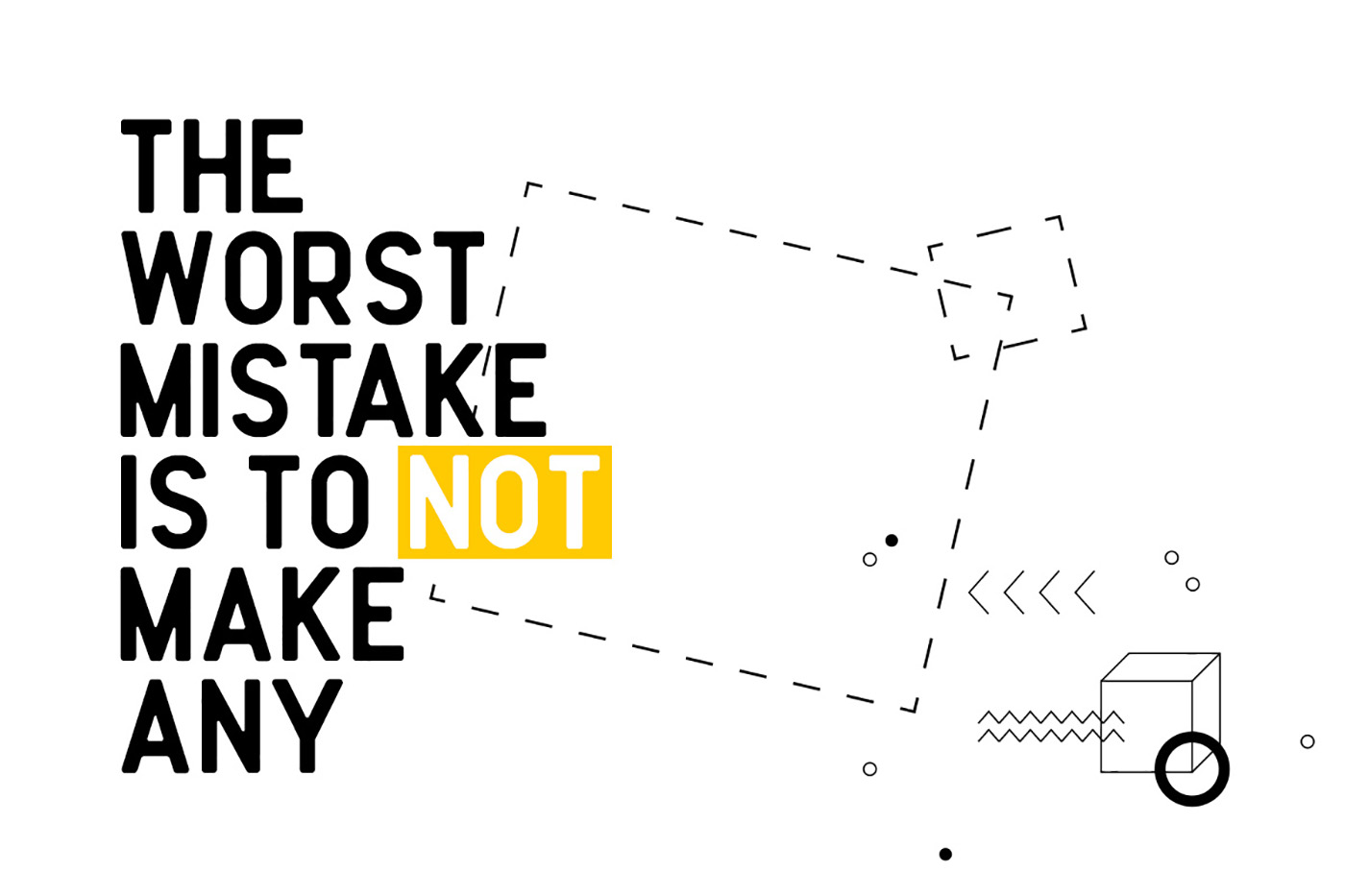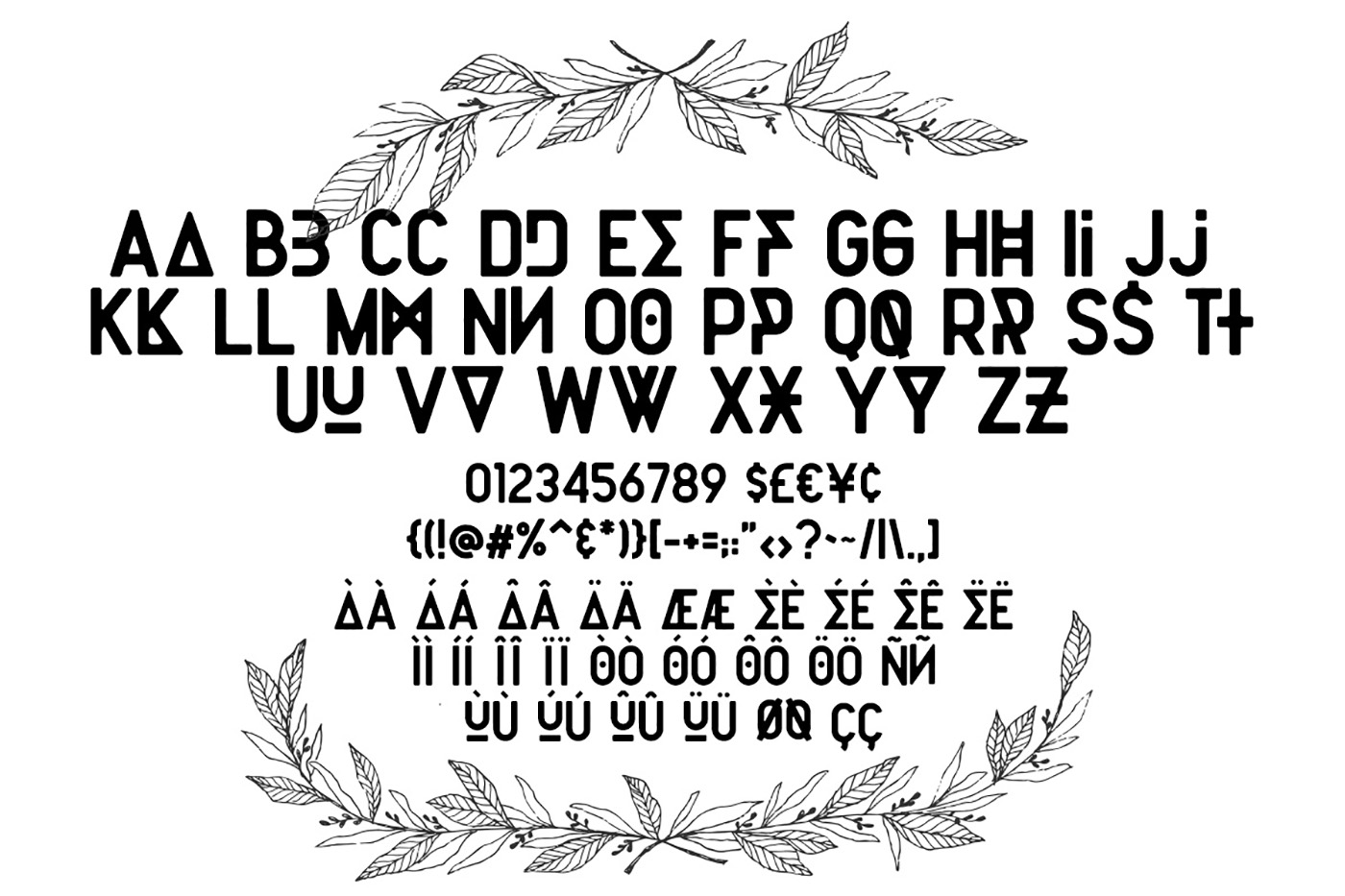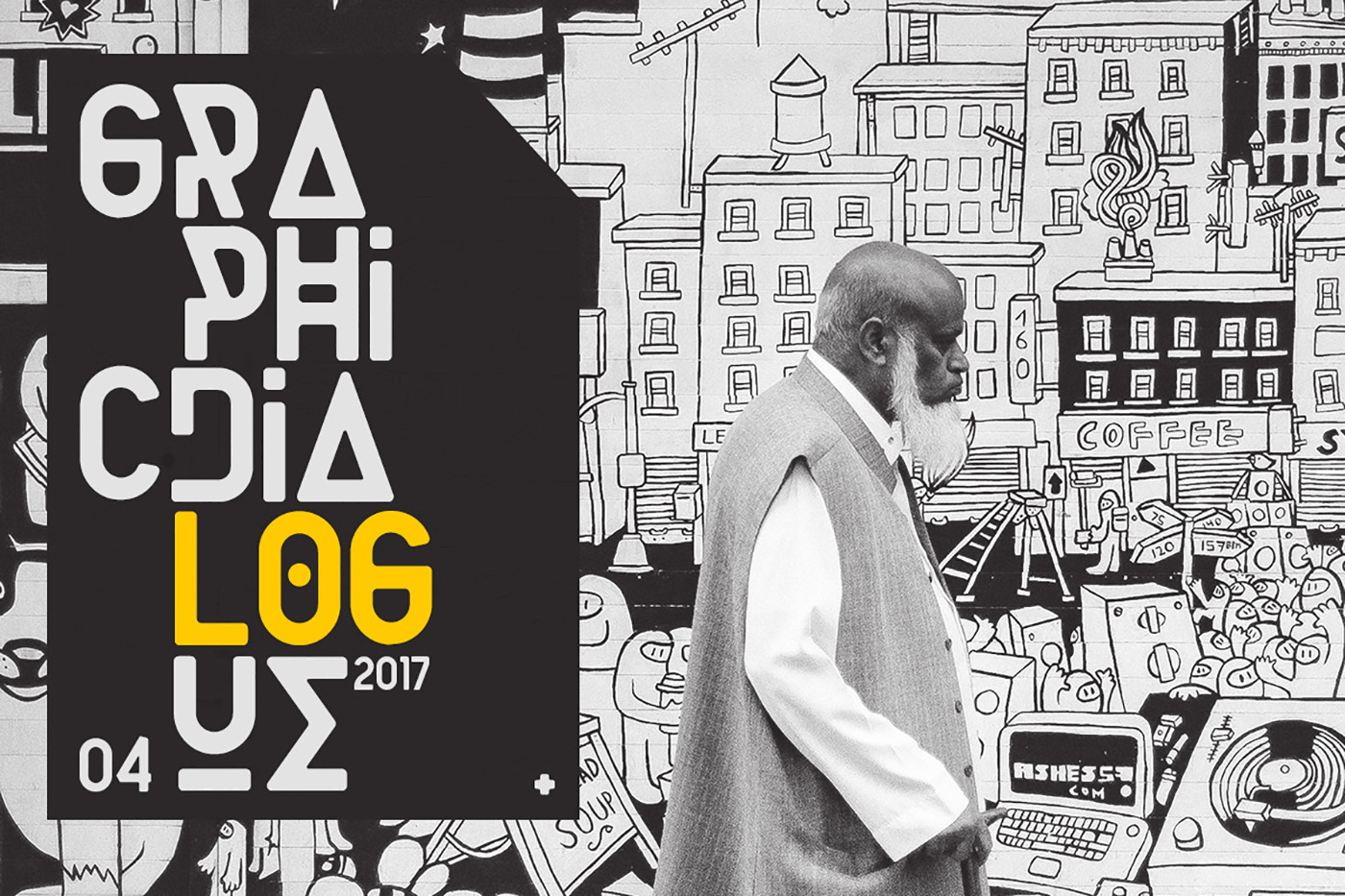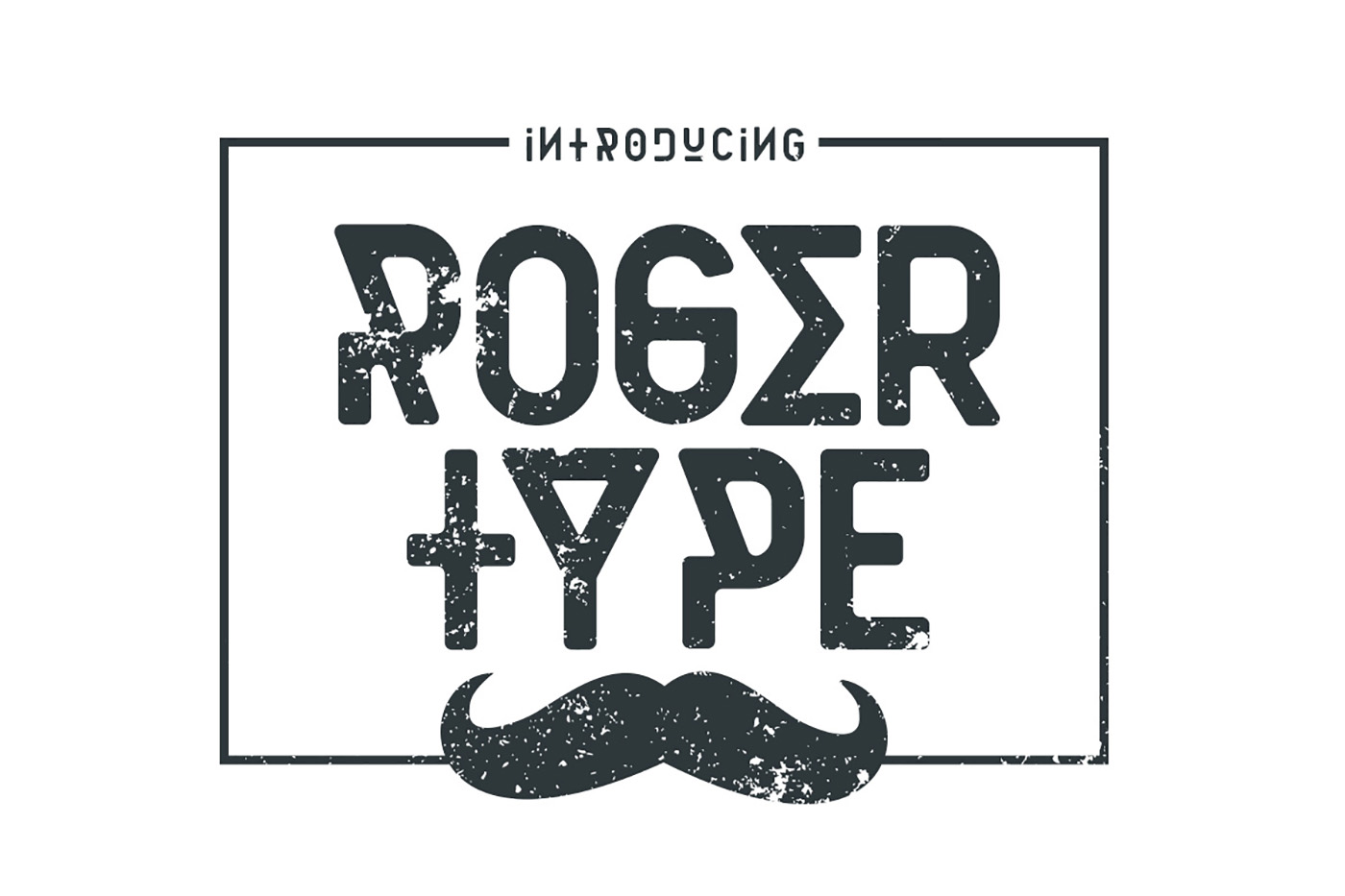
Roger Type Regular Font
Rogertype is a clean and simple vintage serif font, with smooth edges to simulate vintage design. Perfect for many different projects: quotes, blog header, poster, wedding, branding, logo, fashion, apparel, letter, invitation, stationery, etc.